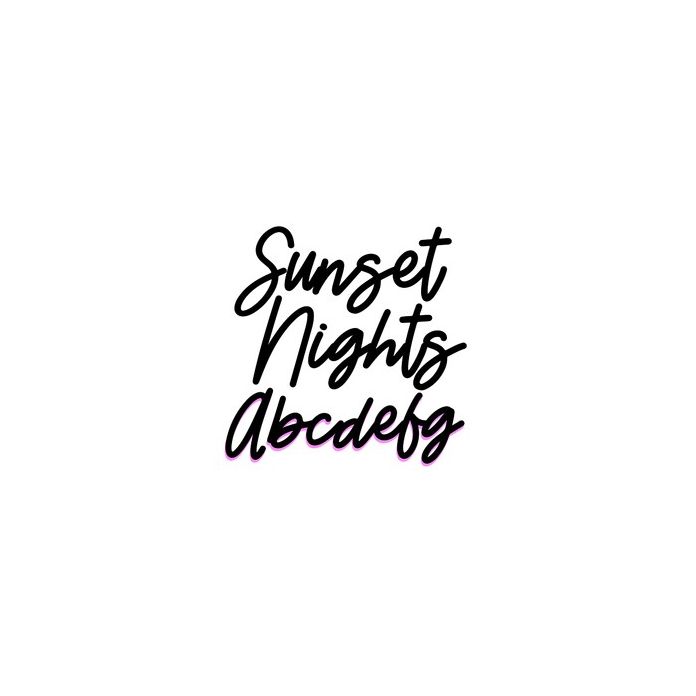
BFC Sunset Nights Italic Cursive Handwriting Planner Font
Sunset Nights is an italic script handwriting font. Perfect for Goodnotes and digital planners!